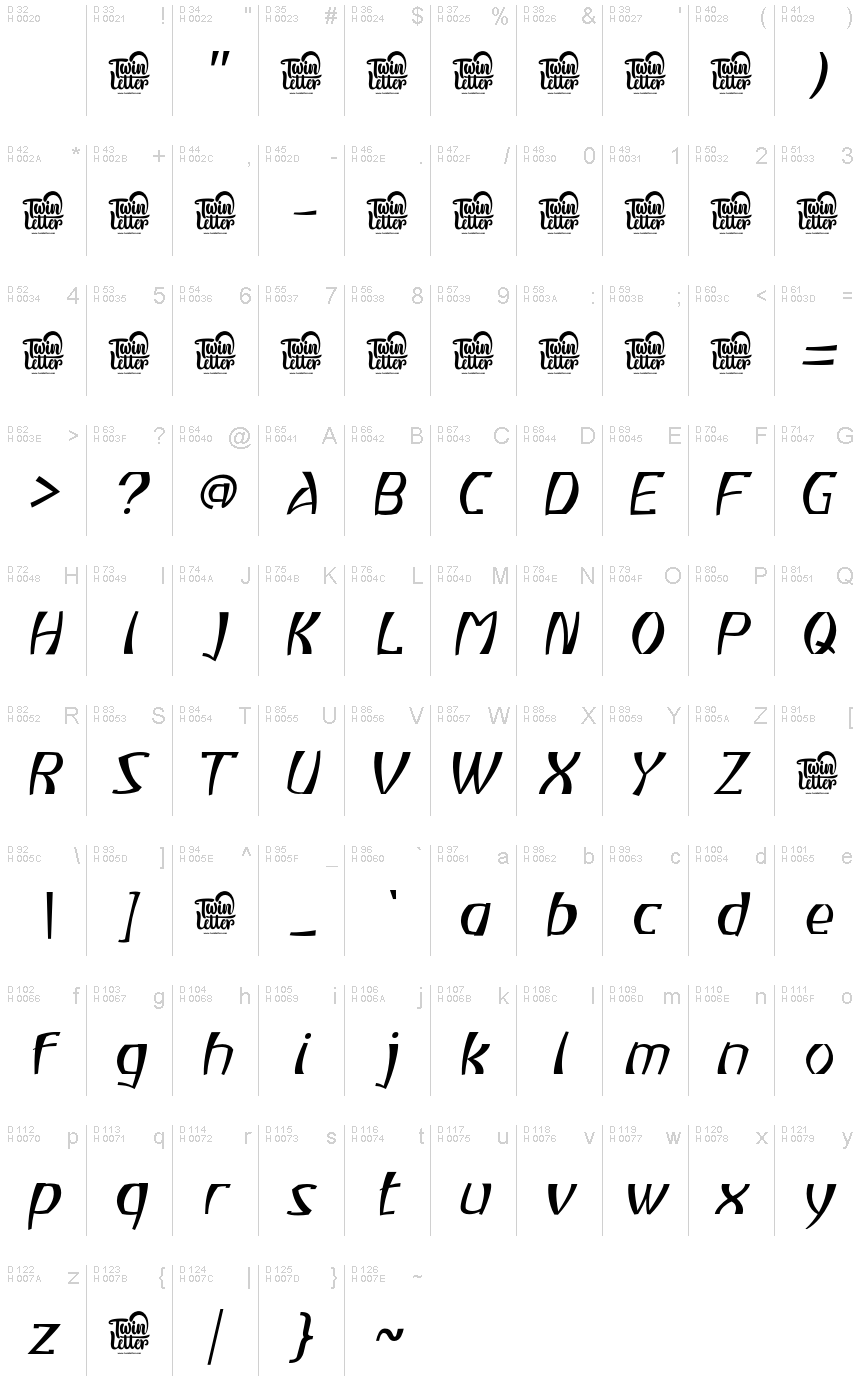
Atikupersonaluse-ThinSlanted
Atiku Thin Slanted font, part of the Atiku family by Twinletter, exudes a distinct Japanese elegance. With its unique slanted style, this font captures attention with a refined and exotic aesthetic. Perfect for modern design needs, Atiku offers 18 diverse styles and many OpenType features to suit various creative projects. Whether you're crafting sophisticated ads or captivating social media posts, its striking appearance ensures your message stands out effortlessly.